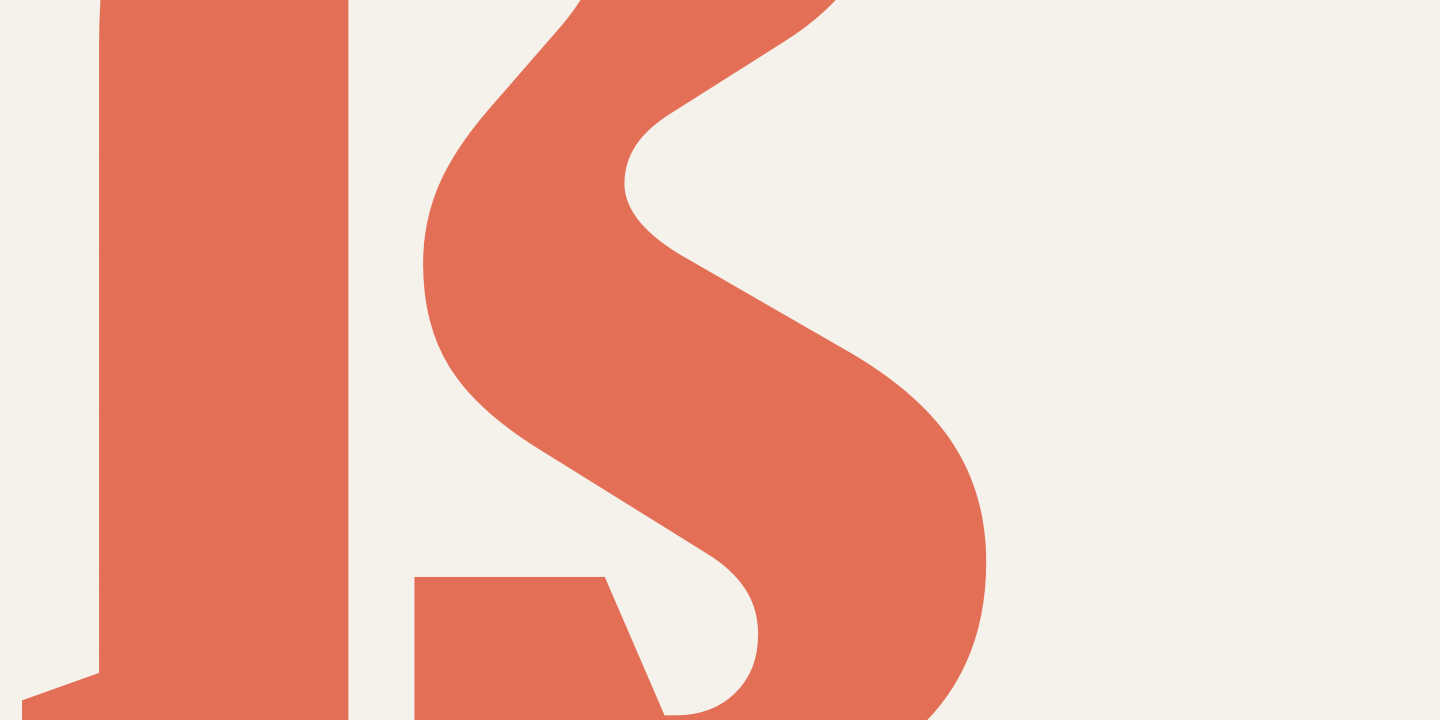
Oranda Font is perfect for contemporary magazine layouts, modern blog headers, lifestyle brand identities, creative agency portfolios, fashion e-commerce websites, architectural presentations, design studio materials, and trendy social media graphics. This versatile typeface brings fresh modernity and creative sophistication to any project requiring distinctive, forward-thinking typography.
What makes Oranda Font exciting is its unique character that seamlessly blends geometric structure with organic flow, creating visual intrigue without sacrificing readability. The font features carefully crafted letterforms with subtle personality quirks that make each word memorable while maintaining professional credibility. Its balanced proportions and optimized spacing ensure excellent performance across digital and print applications, making it ideal for brands seeking to establish a distinctive voice in competitive markets. The typeface's contemporary appeal ensures your designs feel current and engaging.
The Oranda Font family includes Light, Regular, Medium, Bold, and Black weights, each available in both upright and italic variations. The family offers comprehensive language support, stylistic alternates, and contextual ligatures that enhance its versatility for international creative projects. These variants provide designers with extensive flexibility for creating dynamic typographic hierarchies and cohesive brand systems across multiple touchpoints.
Whether you're designing for creative industries, lifestyle brands, or contemporary publications, Oranda Font Free Download delivers the distinctive character your projects need to stand out. Its combination of modern sophistication and unique personality makes it perfect for communicating creativity, innovation, and contemporary style with authentic design-forward appeal and memorable visual presence.